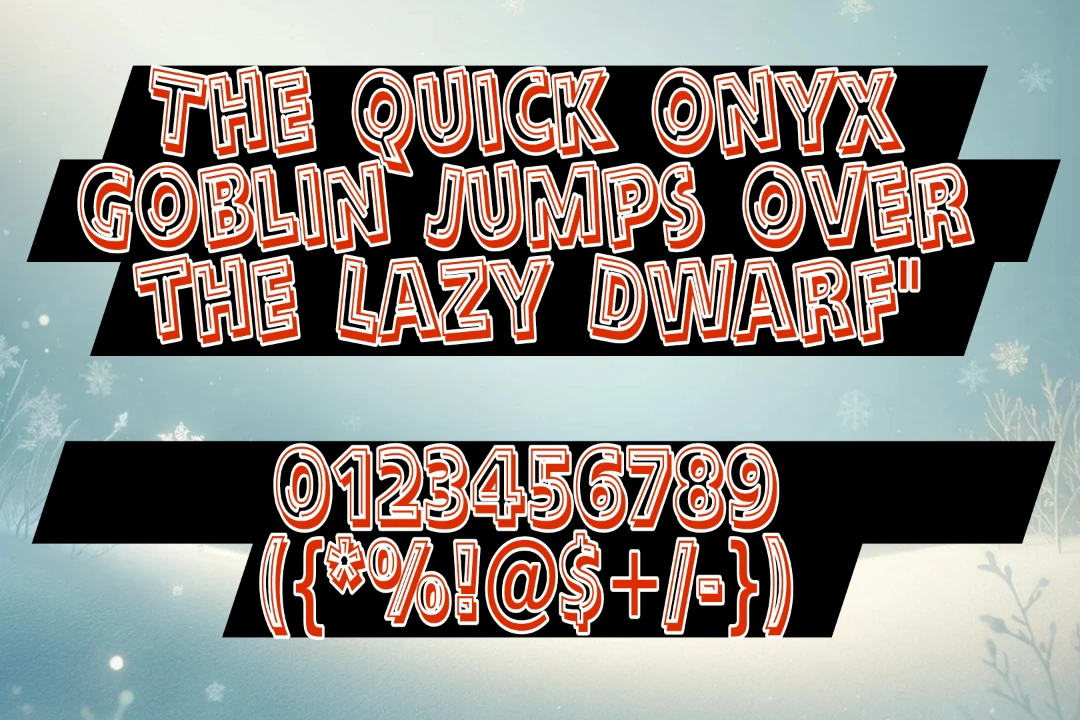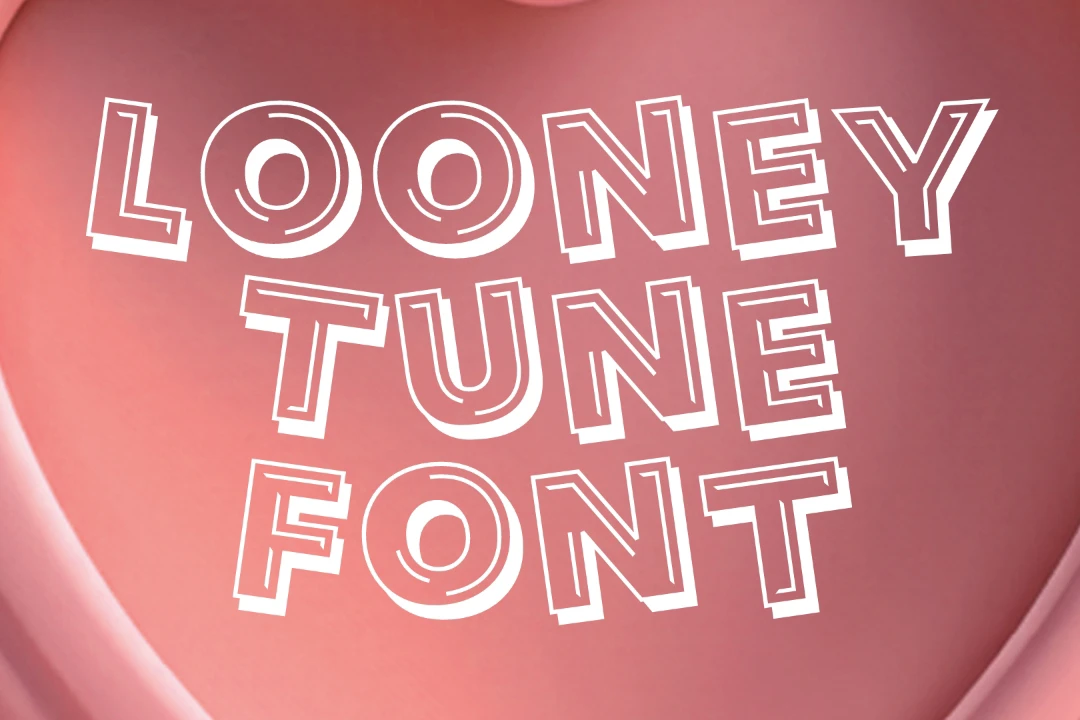
The Looney Tunes Font was Inspired by an American animated short film known as Looney Tunes produced and created by a well-known typographer Warner Bros in 1930.
Uses of Looney Tunes Font
This texture is great for posters, banners, and flyers. You can also use it for creating whimsical and dynamic logos. It will enhance the visual appeal of posts, making them more engaging.
| Designer | Warner Bros |
| Style | Fancy |
What is Looney Tunes texture?
It is a playful and iconic typeface inspired by the classic Looney Tunes logo. It is popular for its whimsical and dynamic style.